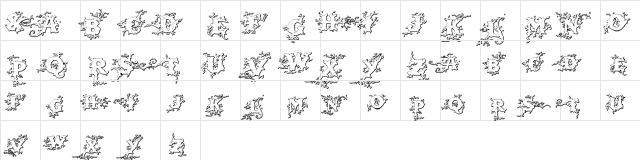
DarkWoodBeveled Regular
Design Context for DarkWoodBeveled Typeface
DarkWoodBeveled taps into classic Western woodtype traditions — bold, characterful, and impossible to ignore.
A natural fit for craft spirits, ranch branding, rodeo events, and Americana-inspired design work.
Font Pairing: Combine DarkWoodBeveled with a simple slab or neutral sans — period-accurate companions reinforce the vintage feel without competing for attention.
Pro Tip: Use DarkWoodBeveled for short, impactful bursts of text — it shines in poster headlines and product names rather than extended copy.